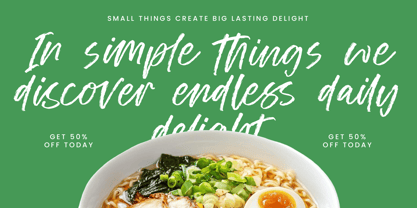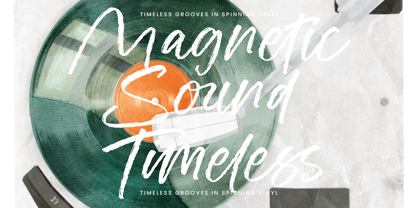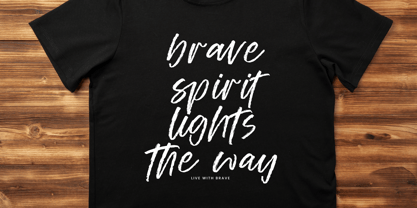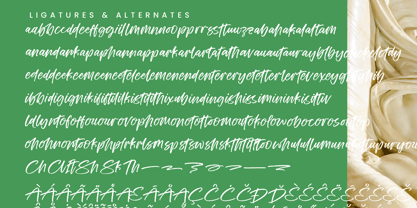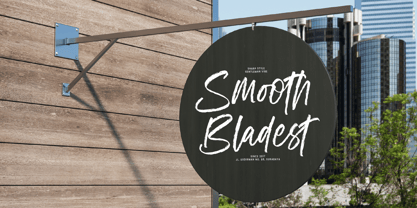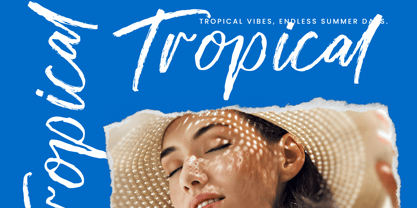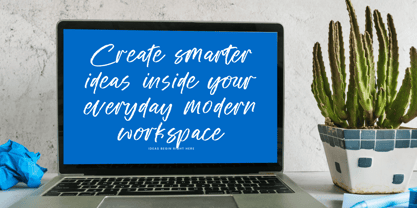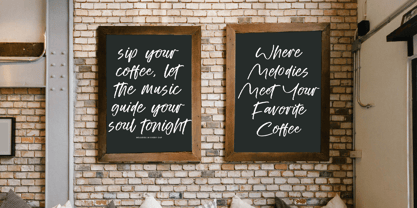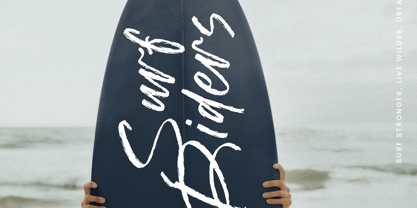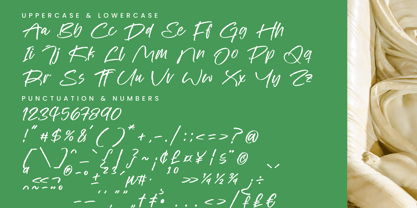
Kinetic Anthem
The Kinetic Anthem Font Family was designed by Heru Utama Putra and published by Stylishtype Studio. Kinetic Anthem contains 2 styles and family package options. More about this family
Kinetic Anthem - Modern Handbrush Script , from Stylishtype , Suitable for any projects such as: logos, branding projects, homeware designs, product packaging, mugs, quotes, posters, shopping bags, t-shirts, book covers, name card, invitation cards, greeting cards, label, photography, watermark, special events, and all your other luxury and beautiful projects that need a Luxury Script taste.